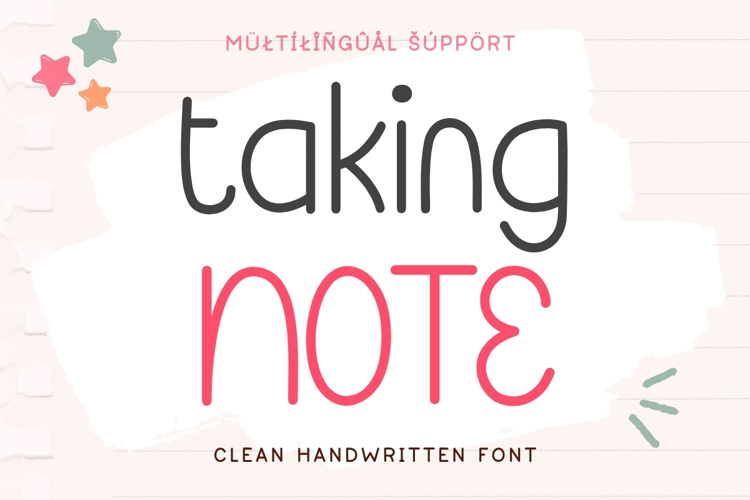
Taking Note is a clean and modern handwritten font designed for clear, natural, and easy-to-read text. With its neat letterforms and simple handwritten style, this font is perfect for digital notes, study materials, planners, journals, worksheets, classroom resources, presentations, and everyday creative projects.
Its clean and friendly appearance works beautifully for both short headings and longer text, making it a versatile choice for teachers, students, designers, and crafters.